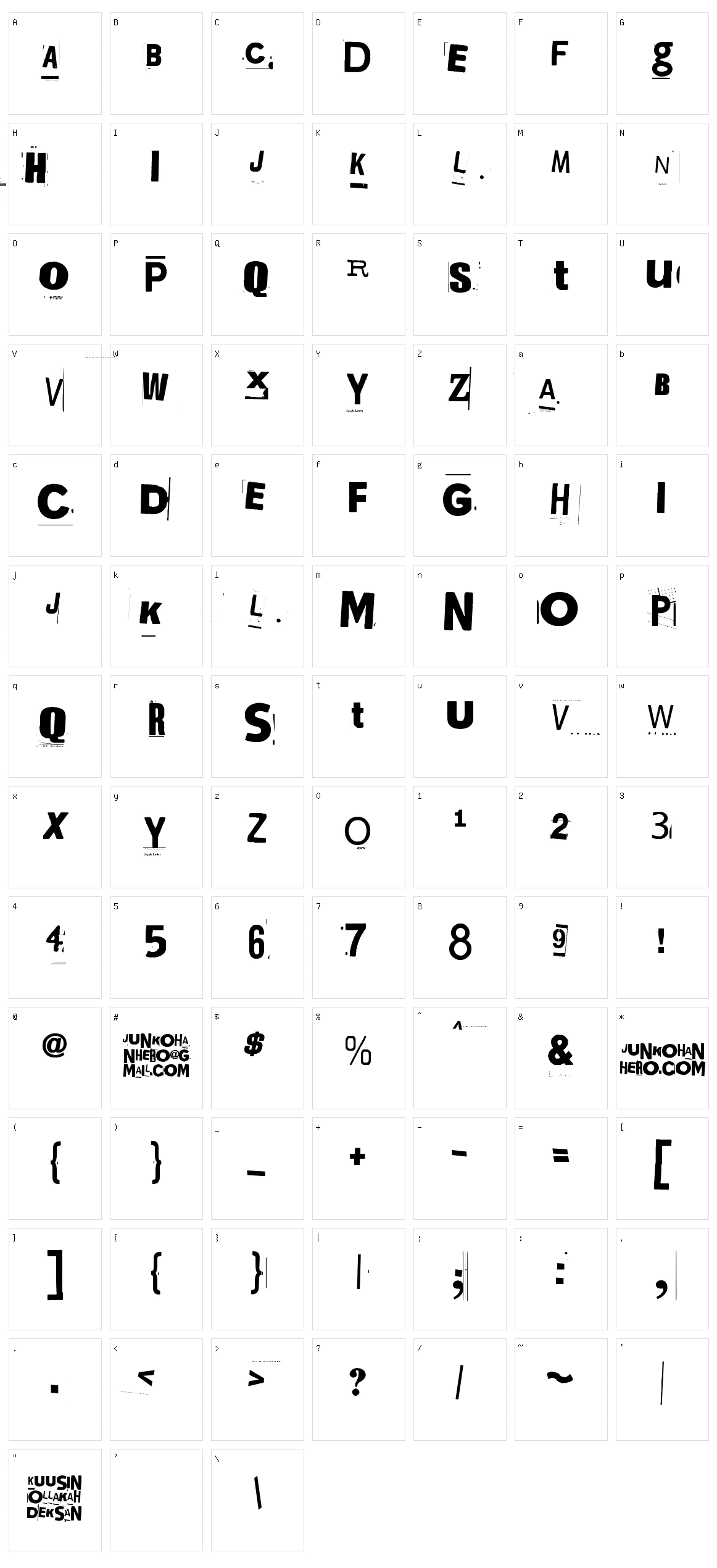
The free font Kuusinollakahdeksan is carefully designed by junkohanhero, showcasing a thoughtful balance of creativity and usability and falls under the Distorted font style. When you download the ZIP file, it contains only 48.26 KB of font files, making it lightweight and quick to download. Please review the license details below to understand permitted usage and distribution rights. If license information is not available, we recommend using this font for personal projects only or contacting the author directly for commercial usage permissions.